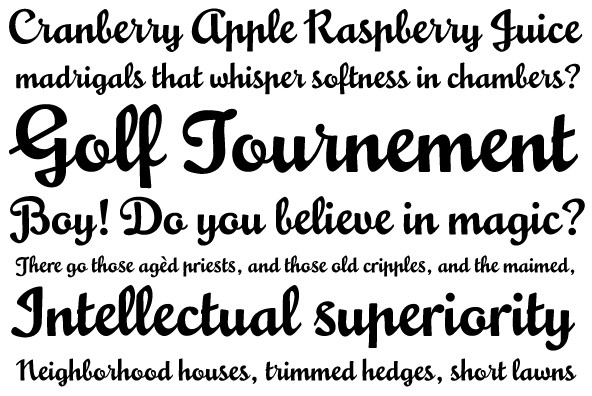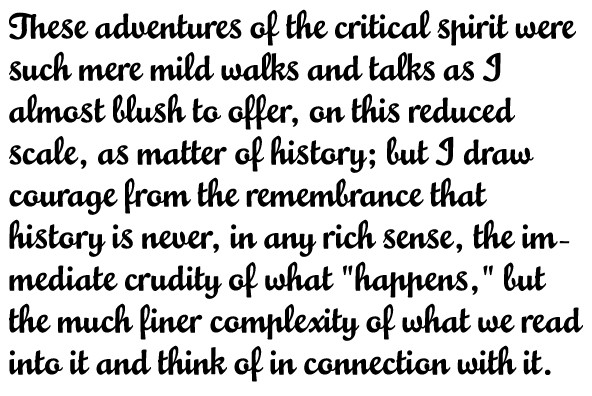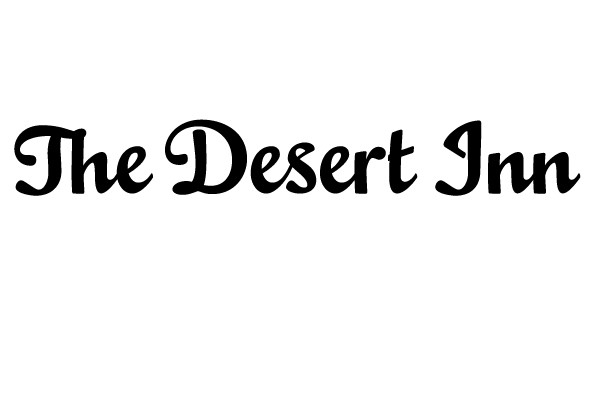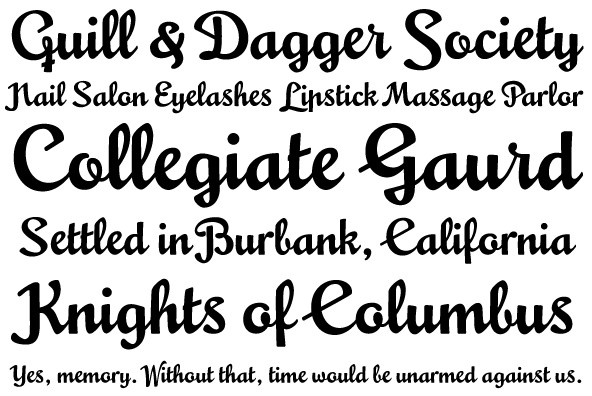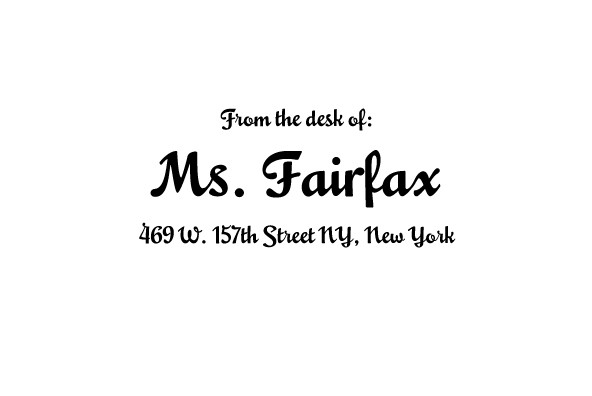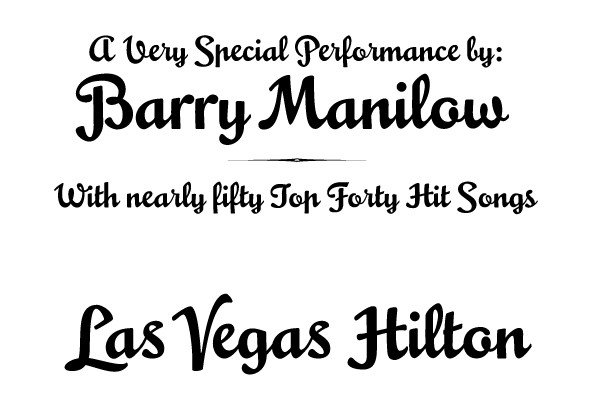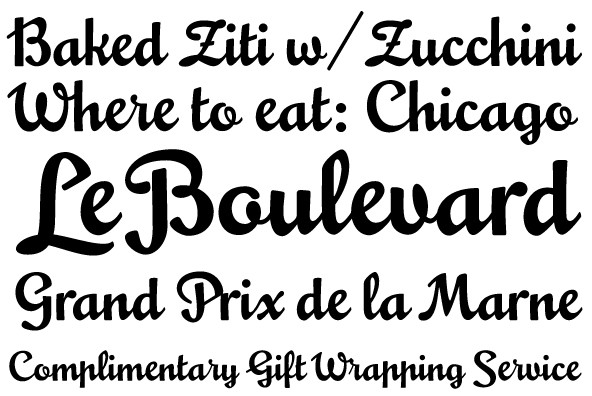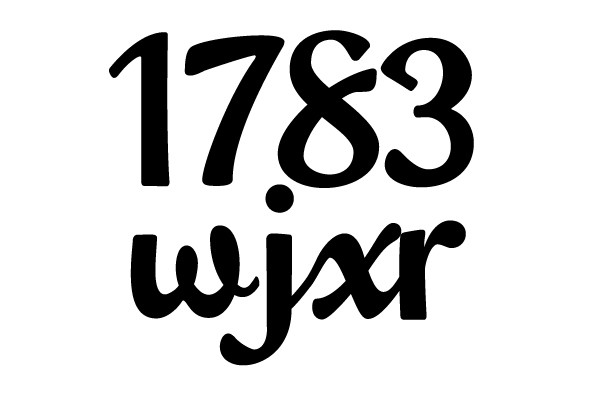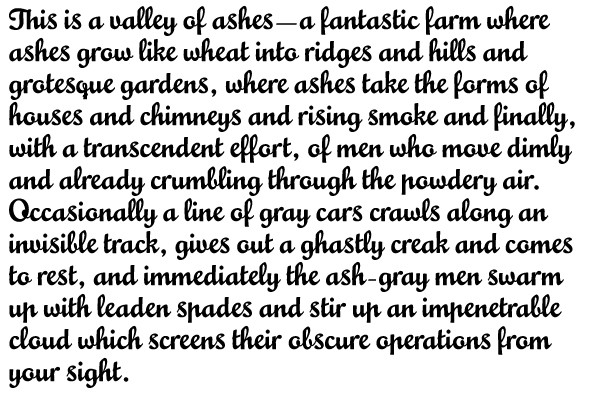
Mousse Script
Mousse Script is based on Glenmoy, a 1932 Stephenson Blake typeface. Glenmoy a prime example of what display typography was in pre-WWII American ad art. It graced the pages of magazines, sold numerous products and services, then simply died out when the typographic trends shifted towards the more personalized, stylized and handwritten types of calligraphy. The current trend in typography is a revivalism that brings all of the distinctive display typography of the 20th century, without chronological discrimination, back in the name of 'retro'. Who are we to deny the masses what they want? Mousse Script doesn't just bring Glenmoy back from the ashes of the 20th century. It expands upon the limited metal character set nearly twice over and takes advantage of the latest type technologies. This makes Mousse Script a striking typeface, both functionally and visually. A simple, attractive display font on the surface, Mousse Script is unique in its bold upright calligraphy, something rarely found these days. The OpenType version of Mousse Script combines both the regular and alternate character sets into a single, cross-platform package that takes advantage of the extended typographic features of the OpenType format.